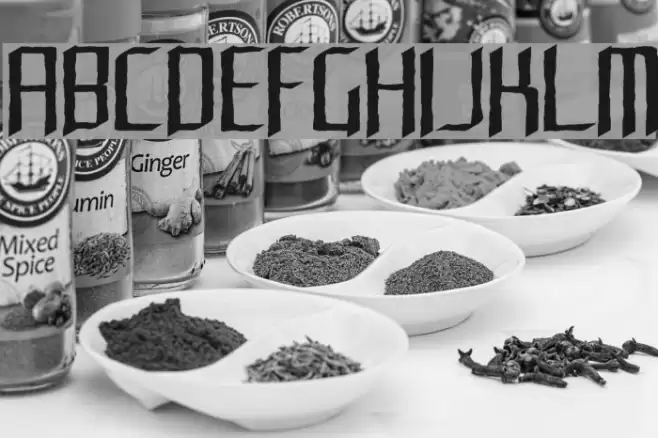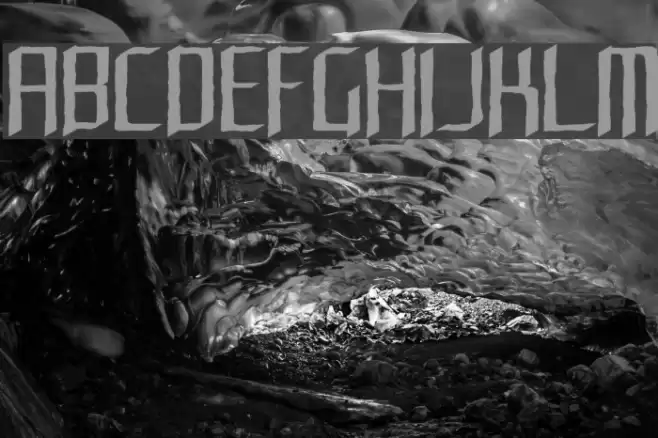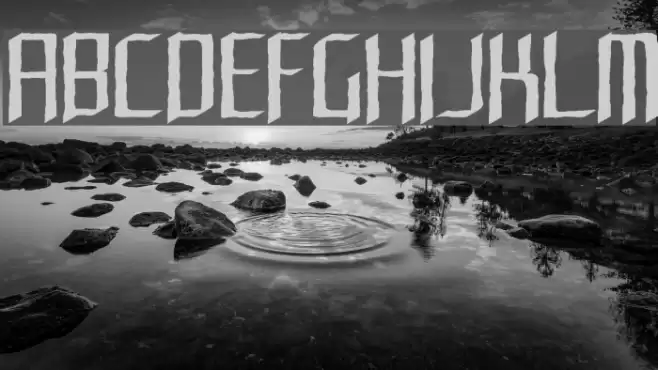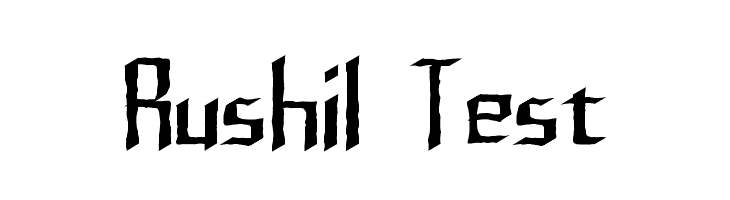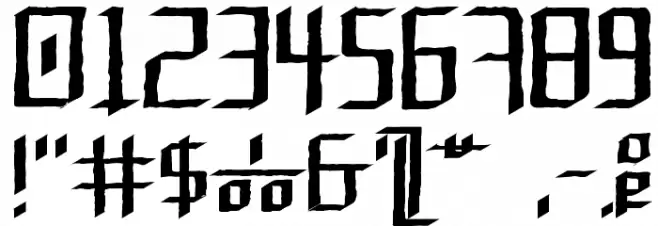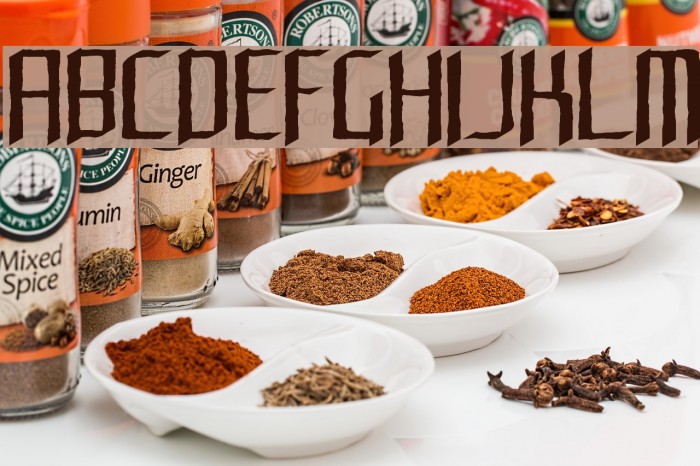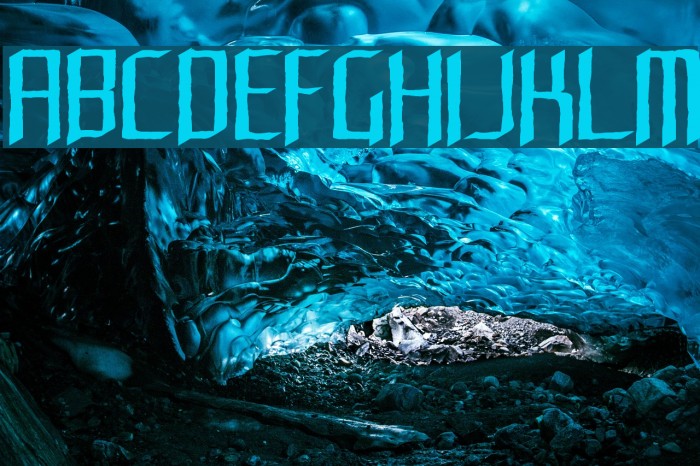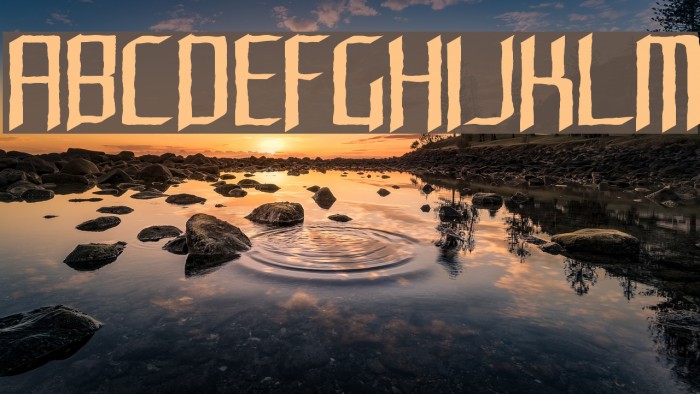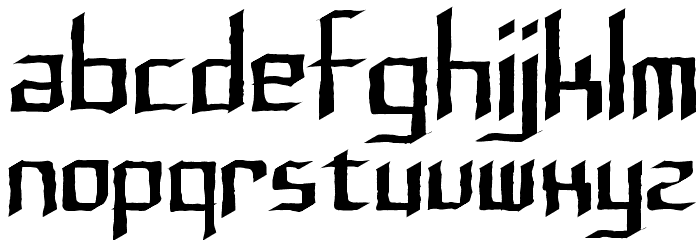
Rushil Test Font
Rushil Test Description
This font features a bold and angular design with a distinct Gothic influence. The characters are sharply defined with a high contrast between thick and thin strokes, giving it a dramatic and edgy appearance. The uppercase letters are tall and imposing, while the lowercase letters maintain a consistent style with slightly more rounded edges. Numbers and special characters follow the same angular and bold aesthetic, ensuring a cohesive look across all elements. This font's unique style makes it stand out, ideal for projects that require a strong visual impact.
A bold, angular Gothic-inspired font with high contrast and dramatic style from Distorted Eroded fonts.